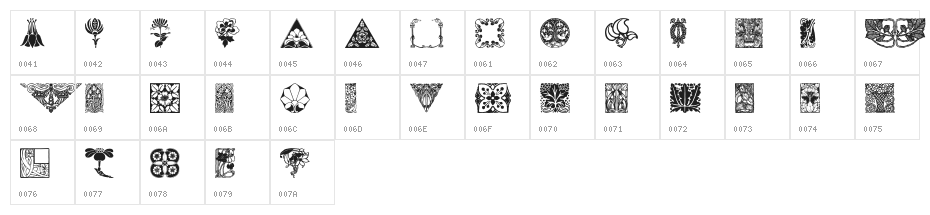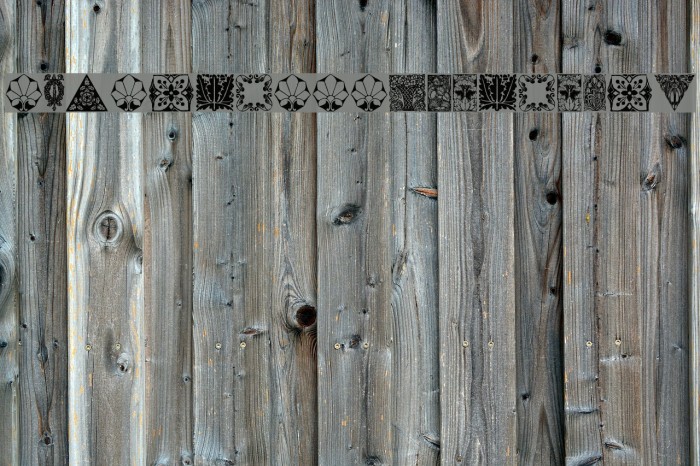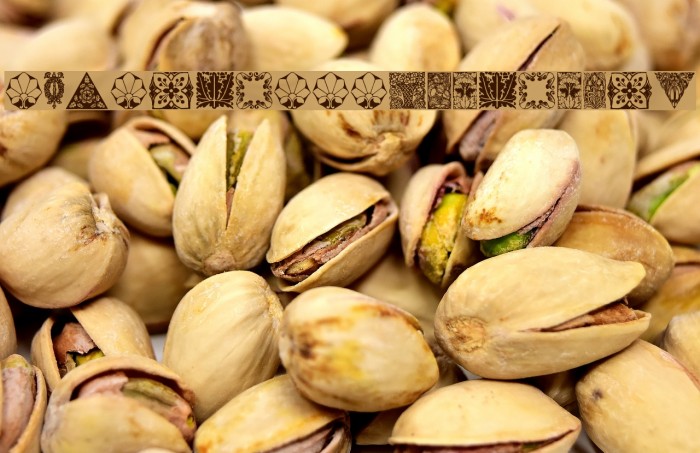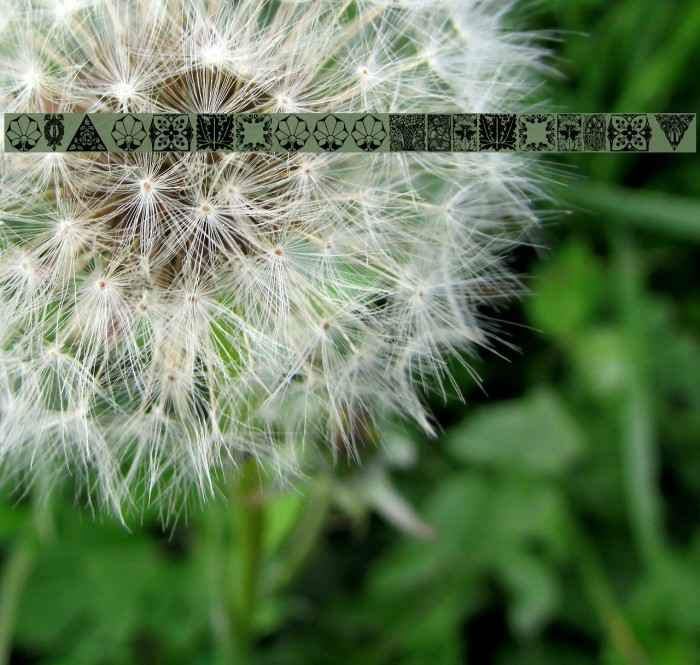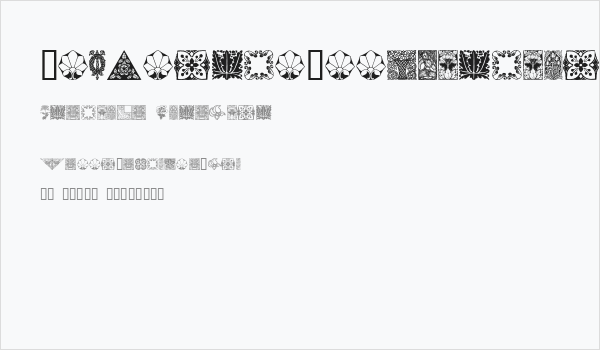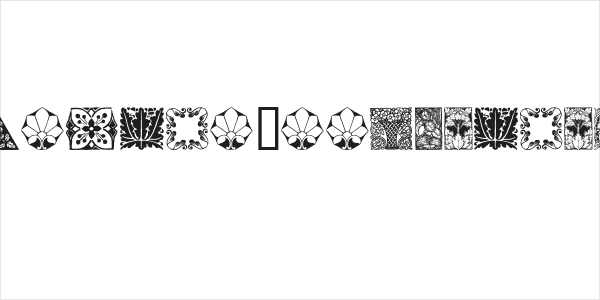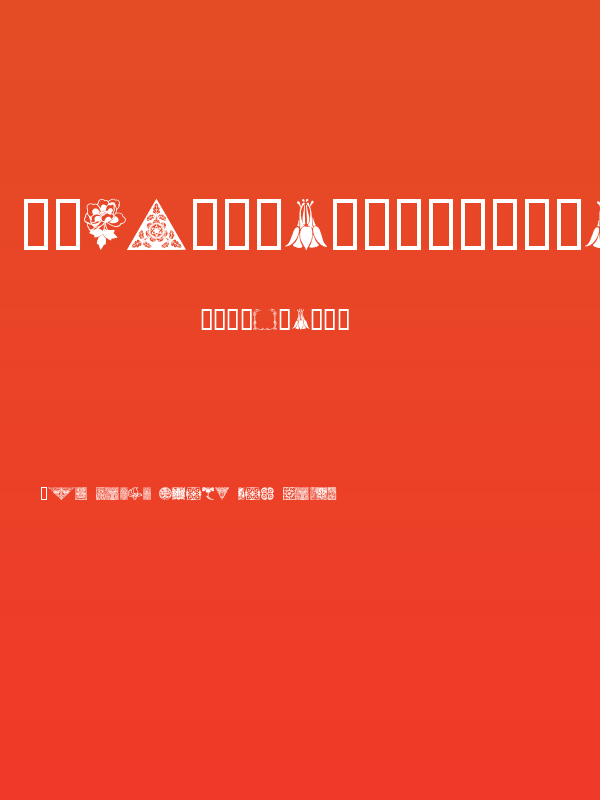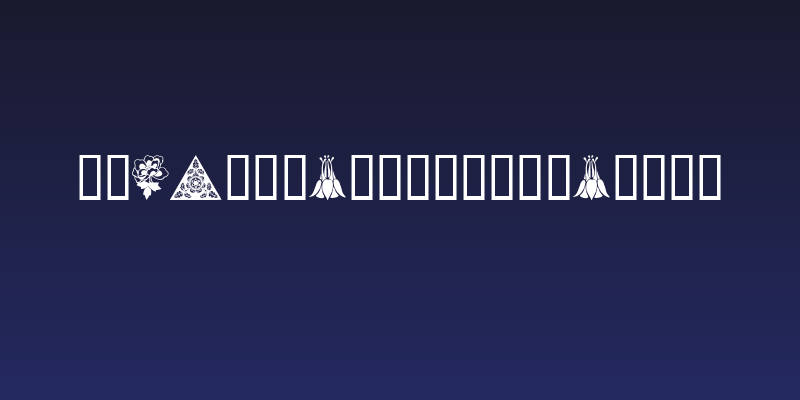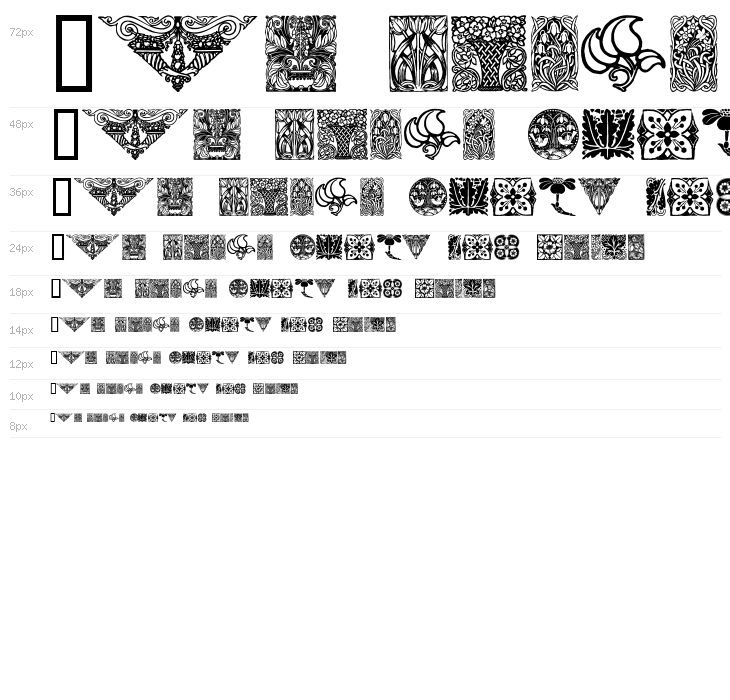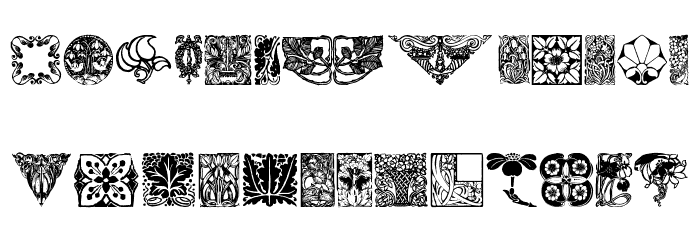
OldFloralIllustration Font
OldFloralIllustration Description
A decorative collection of ornate floral and botanical illustrations, featuring intricate linework and vintage-inspired motifs. Each character is represented by a unique floral or ornamental design, rather than traditional alphanumeric glyphs.
| Overall Style | Vintage, Decorative |
| Use Case | Ornamental elements, embellishments, decorative accents. |
| Proposed Projects | Invitations, greeting cards, decorative borders, vintage-themed posters, scrapbooking, packaging design. |